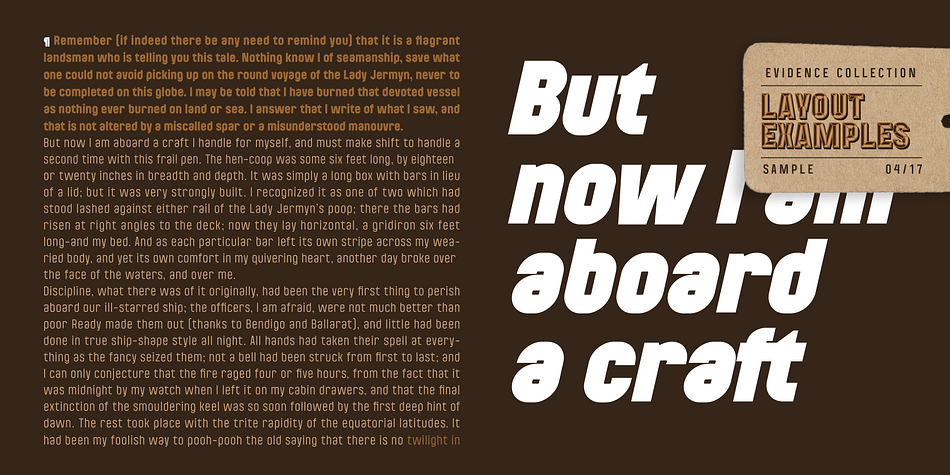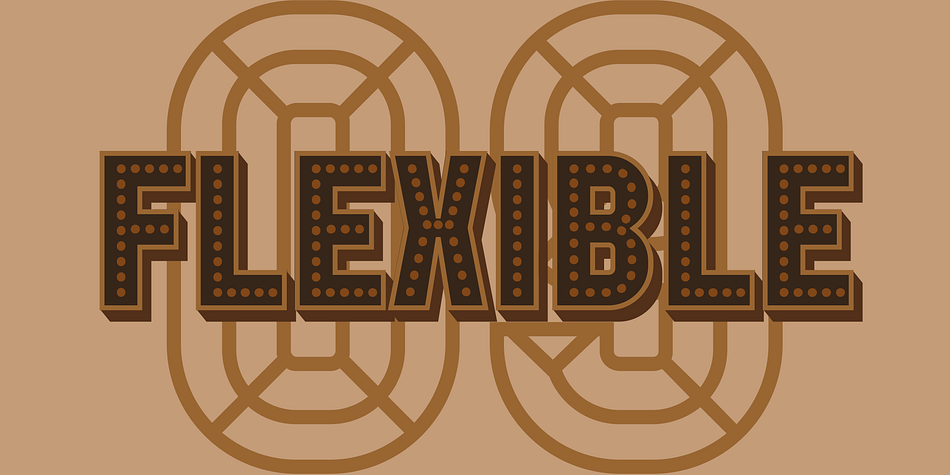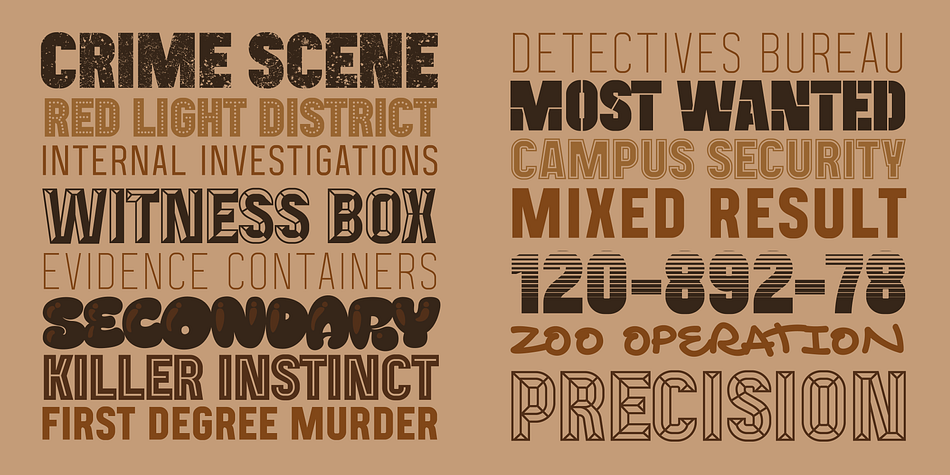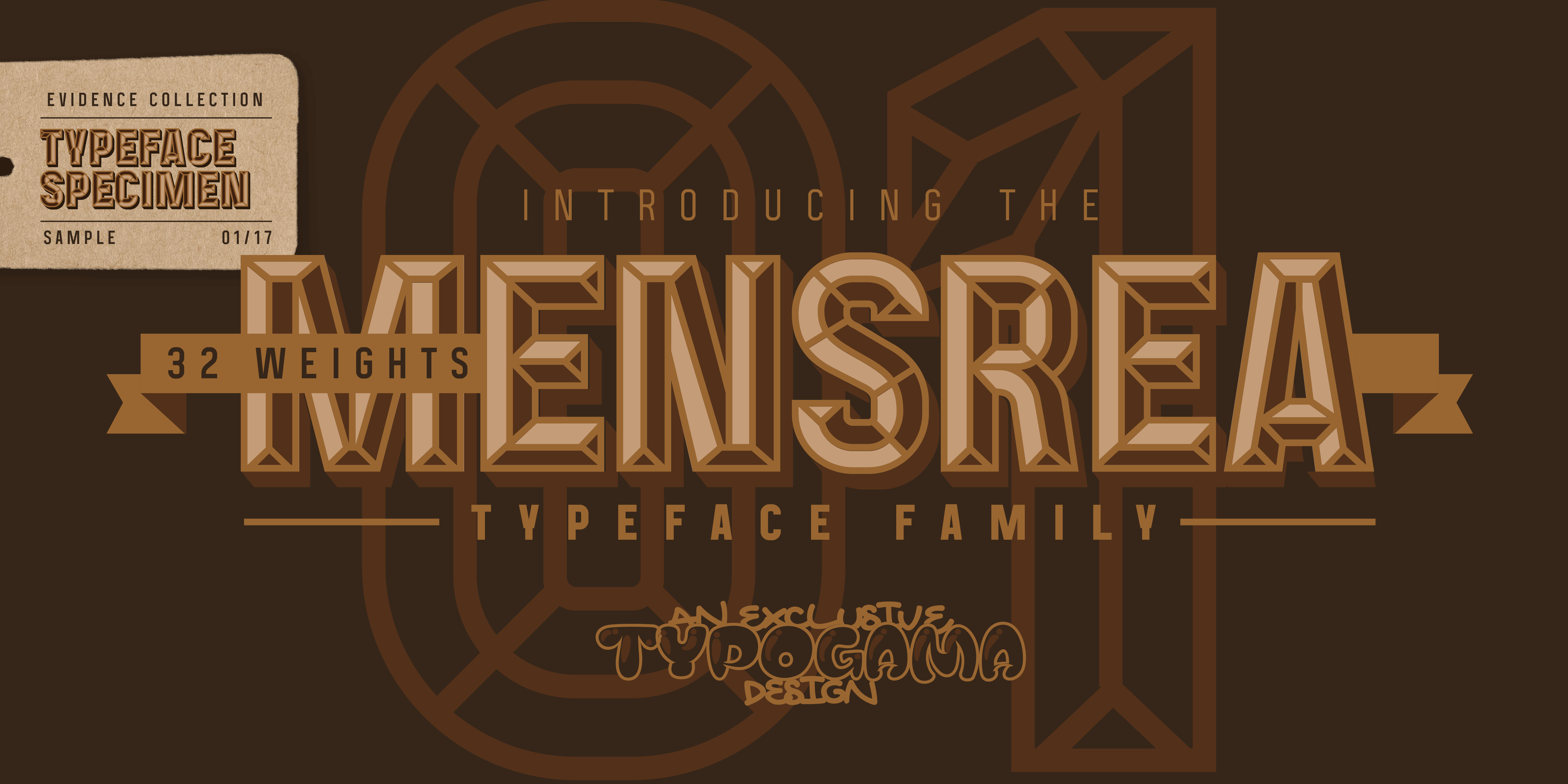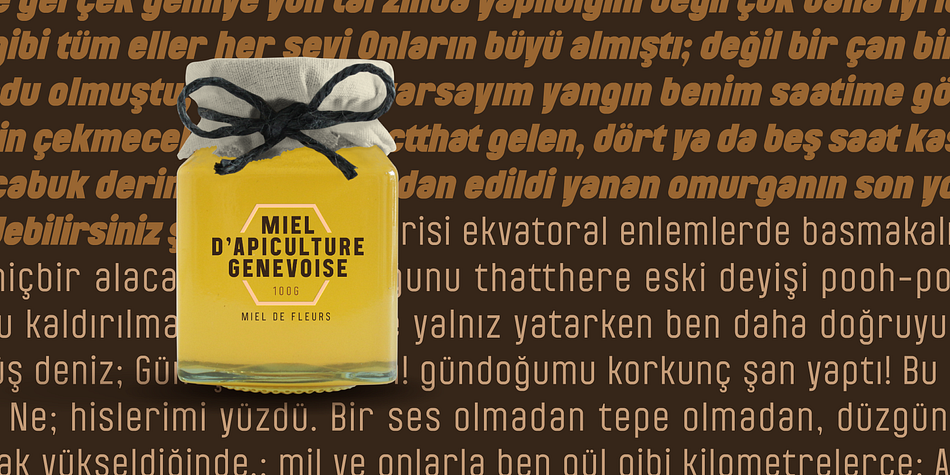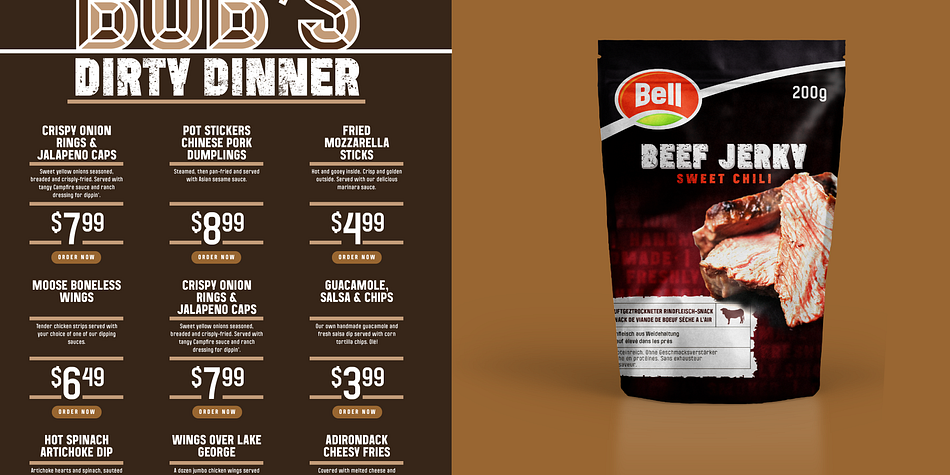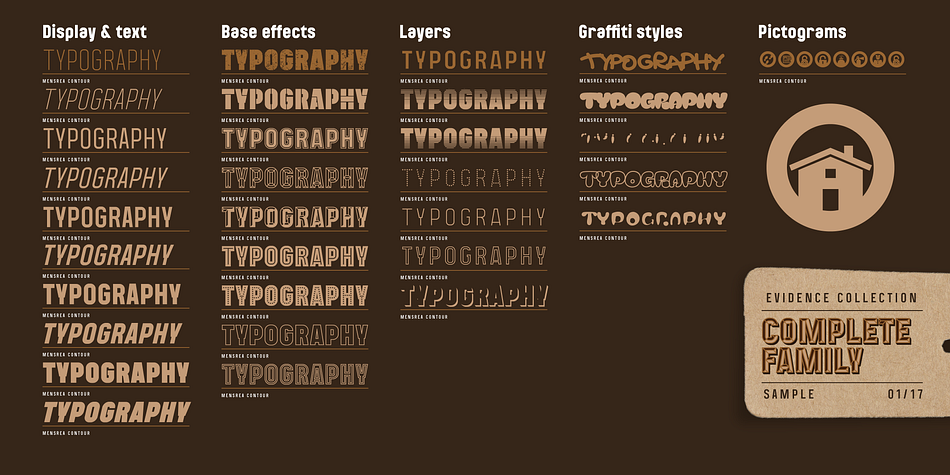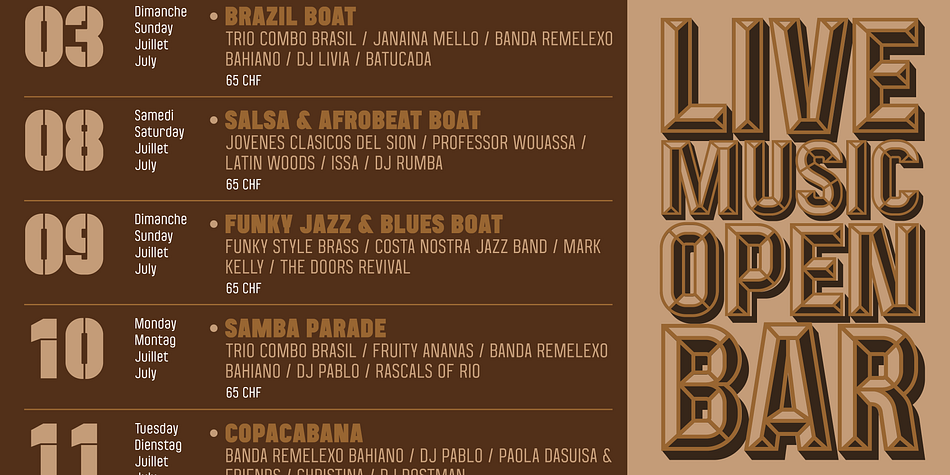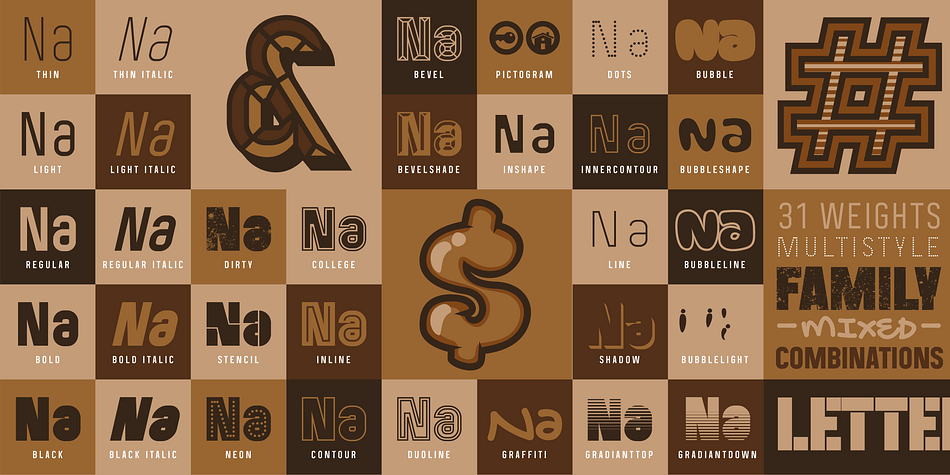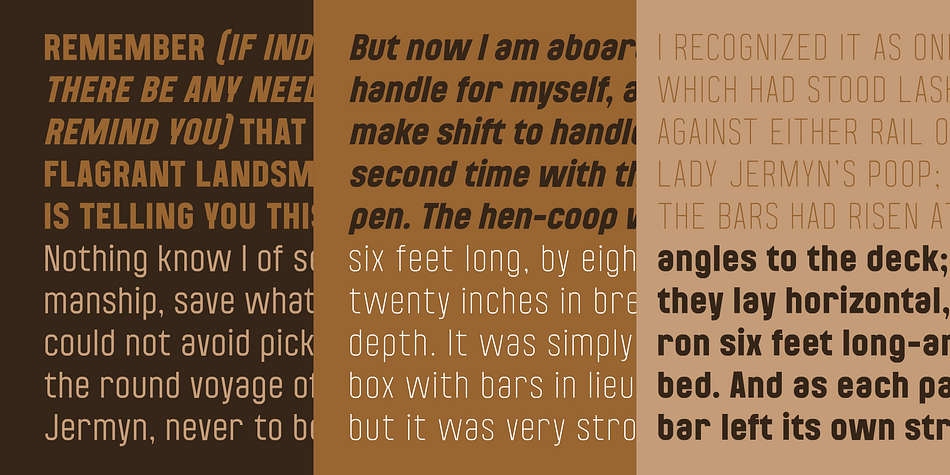
Designed by Michael Parson, Mensrea is a multiple classification font family. This typeface has thirty-two styles and was published by Typogama.
Mensrea is a versatile display and text superfamily combining 32 different styles into a urban, street, themed design bundle. Based on a functional and condensed sans serif, Mensrea equally includes a large range of complimentary weights that can either be used as stand alone styles or then combined with other weights to create layered design. Two Graffiti styles add a further style contrast with a handwritten and fluid dynamic to contrast the main weights, the Bubble style equally features three extra layers for styling. And lastly, a small set of pictograms have equally been included and feature symbols from office icons to themed police iconography in relation to the overall Mensrea theme.